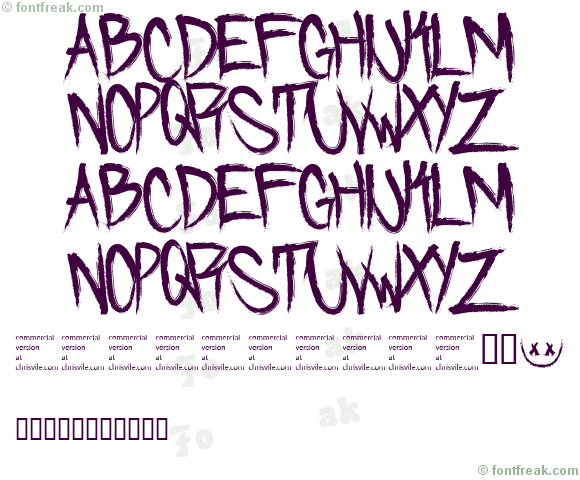
Skidmarked
About Skidmarked
Skidmarked by Chris Vile is a distinctive display font that embodies a raw, edgy aesthetic, perfect for those looking to make a bold statement. This typeface showcases a unique handmade quality, characterized by its uneven stroke weight and dramatic contrast. The letters appear to be hastily sketched, giving them a sense of urgency and rebellious spirit. The spacing between characters is intentionally varied, adding to the font's dynamic feel and making it visually engaging.
This font is particularly suited for a range of creative projects. Its striking appearance makes it ideal for movie posters, especially for genres like horror or action where a rugged, unconventional vibe is desired. Additionally, Skidmarked works well for album covers, especially in the rock or punk genres, where it can capture the essence of the music. Restaurant menus seeking a quirky, casual atmosphere can also benefit from this font, effectively conveying a unique brand identity. Furthermore, graphic designers can utilize Skidmarked for event flyers, promoting concerts or festivals that embrace an edgy aesthetic.
What makes the Skidmarked font truly exceptional is its ability to convey personality and emotion through its design. Its rough, hand-drawn style invites creativity and encourages innovative uses across various platforms. For anyone looking to make their designs pop, the Skidmarked font free download is an excellent choice that promises to leave a lasting impression.